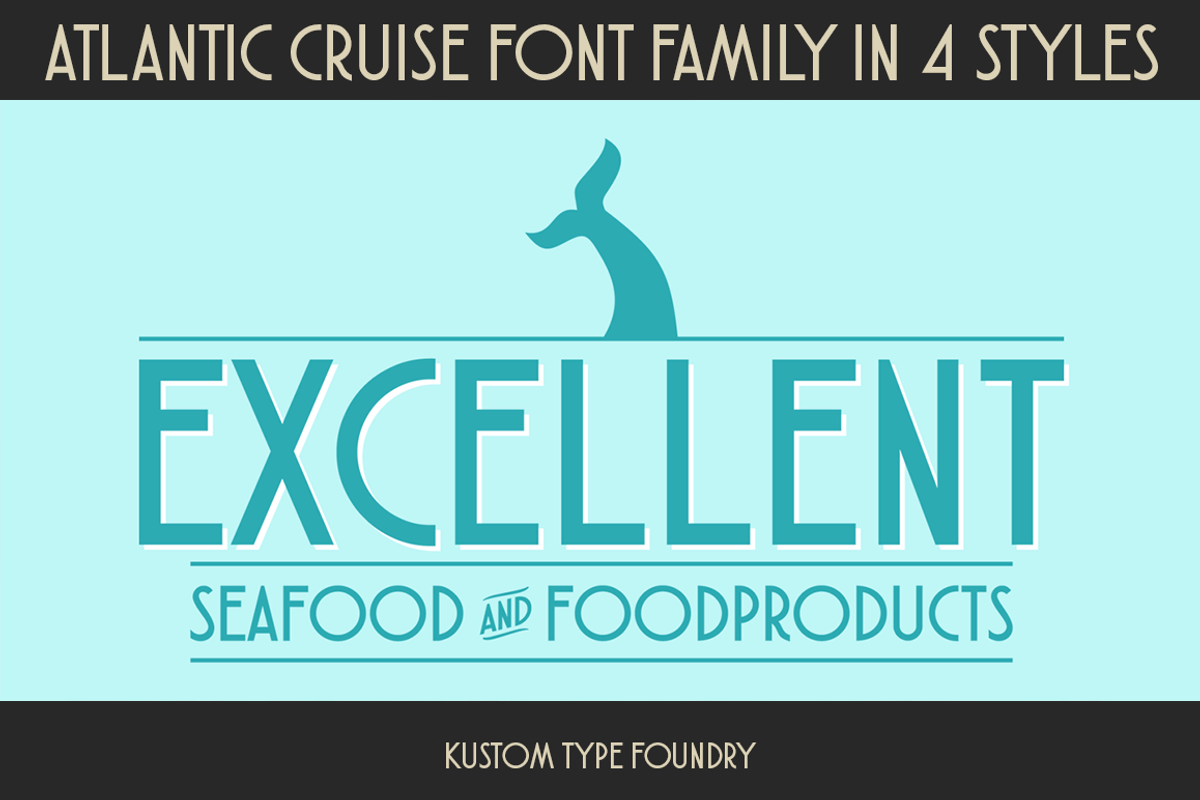
Atlantic Cruise Font Family
Atlantic Cruise Font Family by Kustomtype is a font selected for branding, posters, packaging, typography.
Why Atlantic Cruise Font Family is worth a look
Atlantic Cruise Font Family by Kustomtype fits naturally into Branding, posters, packaging, typography.